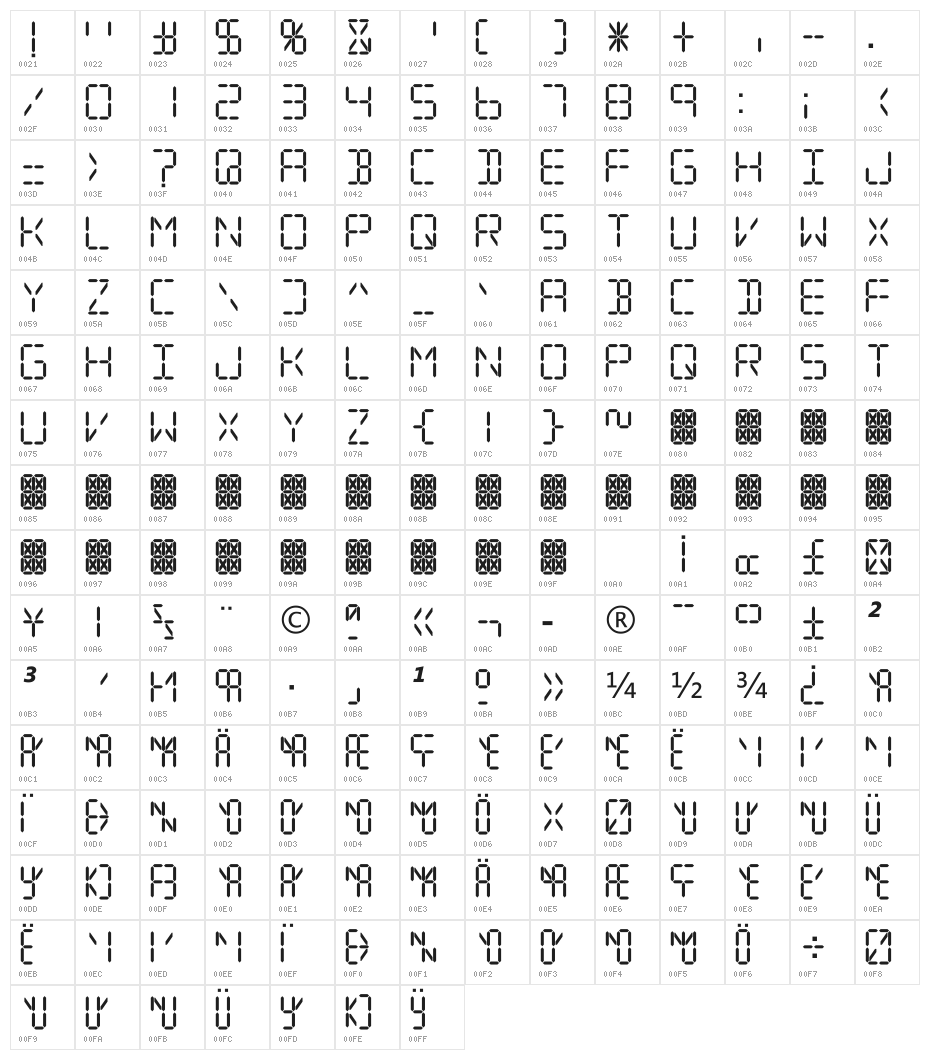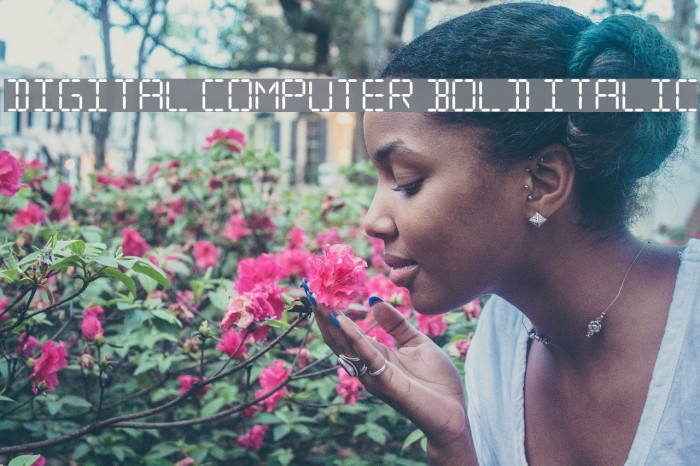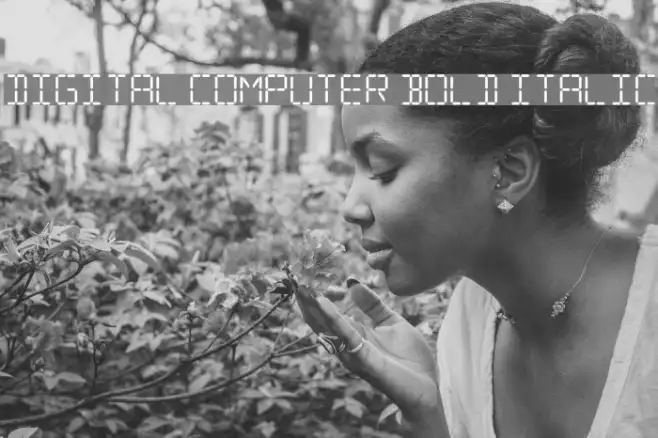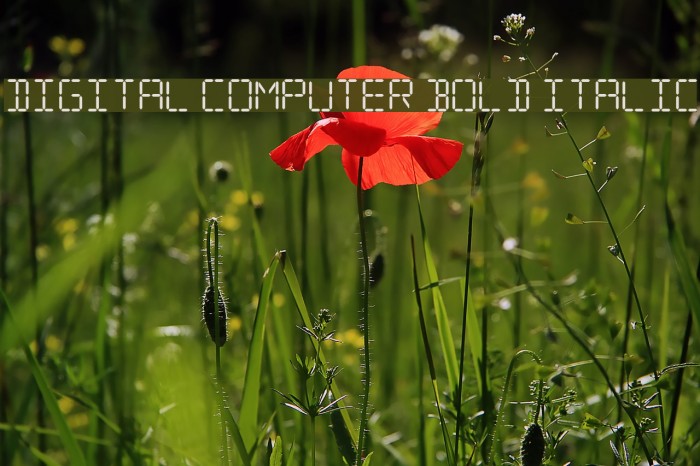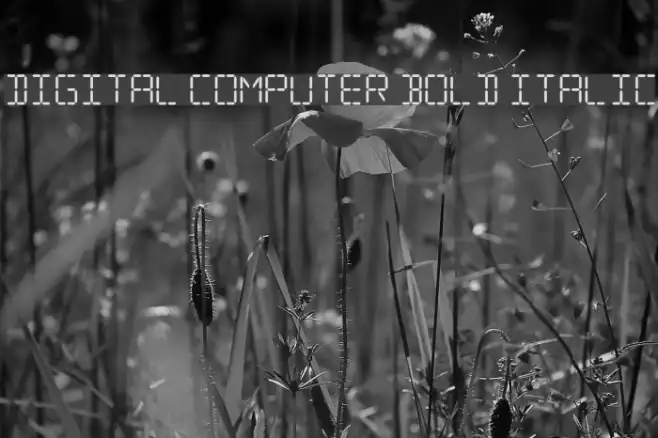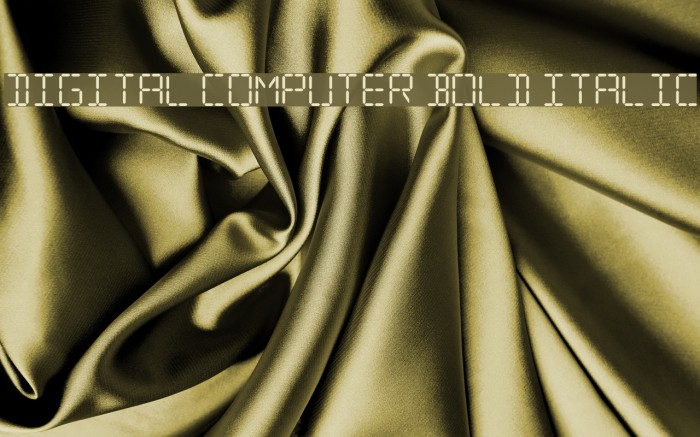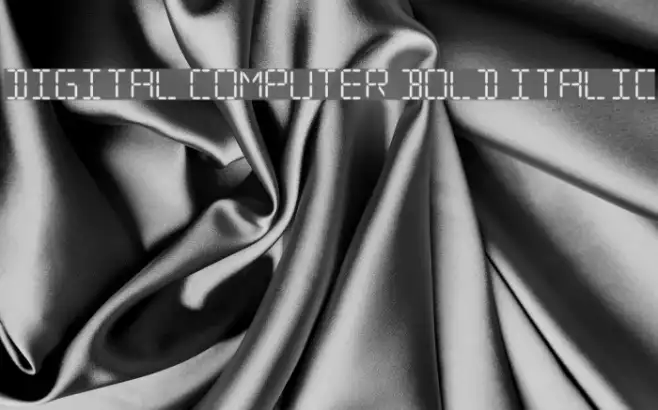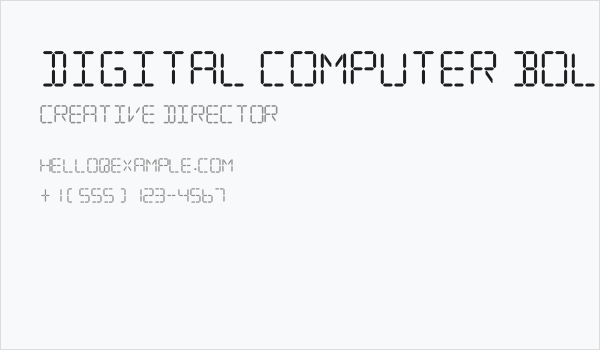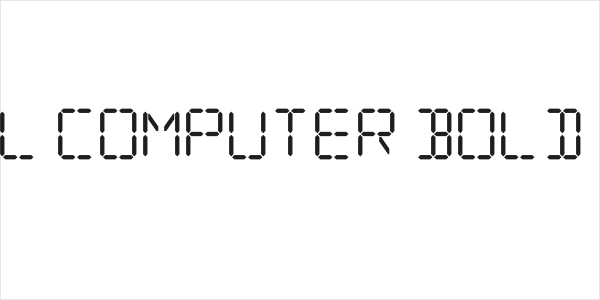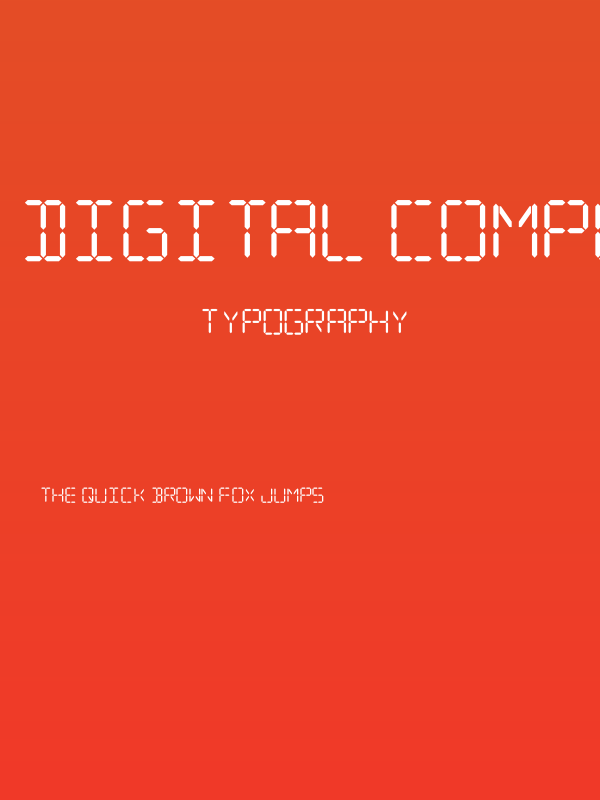
Digital Computer Bold Italic Font
Digital Computer Bold Italic Description
This font features a digital, segmented style reminiscent of old digital clocks and calculators. Each character is constructed from a series of rectangular segments, creating a geometric and technical appearance. The uppercase and lowercase letters share a similar structure, maintaining consistency across the alphabet. Numbers and special characters follow the same segmented pattern, ensuring uniformity. The font's bold and italic attributes enhance its visibility and add a dynamic touch, making it suitable for digital-themed projects. Its unique style captures a retro-futuristic aesthetic, ideal for conveying a sense of technology and innovation.
| Overall Style | Retro-Futuristic |
| Use Case | Headlines, Logos, Digital Displays |
| Proposed Projects | Ideal for digital displays, tech-themed posters, retro video games, and futuristic branding. |